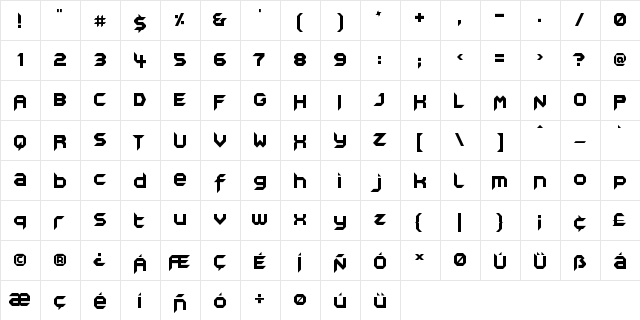
zimbawee eYe/FS Regular
| Designer | Antonio J. Morata |
Design Context for zimbawee eYe/FS Typeface
zimbawee eYe/FS takes a measured approach to typography — its balanced proportions and neutral character make it a reliable workhorse for both digital and print work.